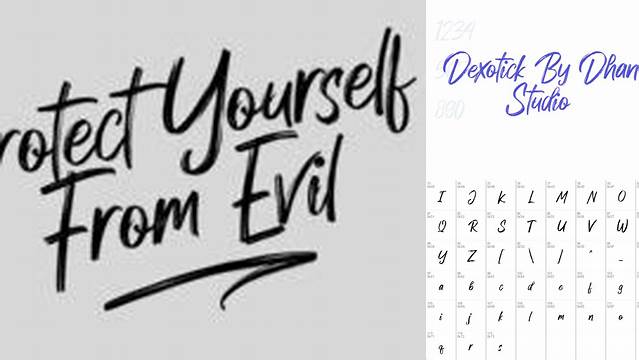
Hey guys! Are you on the hunt for a font that screams uniqueness and style? Look no further! We're diving deep into the world of Dexotick, a font that’s been making waves in the design community. This article is your ultimate guide to understanding what makes Dexotick so special, where you can snag it for free, and how to use it to its full potential. Get ready to elevate your design game!
1. What is Dexotick Font?
So, what exactly is Dexotick font? In the simplest terms, it's a typeface. But it's so much more than that! Think of it as a visual voice, a way to inject personality and flair into your projects. Dexotick stands out with its distinctive characteristics – perhaps it's the unique curves, the playful serifs, or the overall modern yet retro vibe it exudes. Designers often turn to Dexotick when they need a font that isn't just readable but also leaves a lasting impression. It's the kind of font that can make a headline pop, a logo memorable, or even a simple invitation feel extra special. The beauty of Dexotick lies in its versatility; it can be both elegant and edgy, depending on how you use it. Whether you're working on a branding project, designing a website, or crafting social media graphics, understanding the nuances of Dexotick font will help you make the right choices and create visually stunning results. Imagine using it for a poster – the bold strokes immediately grab attention. Or picture it gracing the pages of a magazine, adding a touch of sophistication. The possibilities are endless, and that’s what makes Dexotick such a valuable asset in any designer's toolkit. To truly appreciate its appeal, you need to see it in action. Explore different weights and styles within the Dexotick family, and you'll quickly discover how adaptable it is. It's not just a font; it's a design element that can transform your work from ordinary to extraordinary. Using Dexotick font effectively involves understanding its personality and applying it where it shines the most. It’s about finding that perfect balance between readability and visual impact. So, as you delve deeper into the world of typography, keep Dexotick in mind – it might just be the secret ingredient your next project needs!
2. Key Features of Dexotick
Okay, let’s break down what makes Dexotick font so unique. When we talk about key features, we’re not just looking at the alphabet; we’re digging into the nitty-gritty details that set this font apart from the crowd. First off, think about its overall style. Is it modern? Classic? Maybe a little bit of both? Dexotick often boasts a blend of contemporary design with a nod to vintage aesthetics, making it incredibly versatile. Then there’s the letterforms themselves – are the lines clean and sharp, or do they have a more organic, flowing feel? Dexotick might incorporate unusual curves, serifs, or even swashes that add character and flair. Another crucial feature is its weight and variations. Does Dexotick come in different weights, like bold, italic, or light? A comprehensive font family gives you more flexibility in your designs, allowing you to create visual hierarchy and emphasis. The spacing and kerning are also vital. Good spacing ensures that the letters sit comfortably together, making the text easy to read. Kerning, the adjustment of space between individual letters, refines the overall look and feel. Dexotick font typically pays close attention to these details, ensuring a polished and professional appearance. Finally, consider its legibility. A beautiful font is useless if it’s hard to read. Dexotick usually strikes a balance between style and readability, making it suitable for a wide range of applications, from headlines to body text. By understanding these key features, you can make informed decisions about when and how to use Dexotick in your projects. It’s not just about picking a pretty font; it’s about choosing one that communicates your message effectively and enhances your overall design. So, take the time to explore these elements, and you’ll be well on your way to mastering the art of typography with Dexotick font.
5. Using Dexotick in Graphic Design Projects
Okay, now for the fun part: actually using Dexotick font in your graphic design projects! This is where you get to unleash your creativity and see how this font can transform your work. But, like any design element, it’s all about using it effectively and strategically. First things first, consider the overall tone and style of your project. Dexotick, with its unique personality, might not be the perfect fit for every situation. Think about the message you’re trying to convey and whether the font aligns with that message. Is it a bold and modern project? A vintage-inspired design? Or something more elegant and sophisticated? Dexotick can often work well in a variety of contexts, but it’s essential to ensure it complements the overall aesthetic. When it comes to typography, hierarchy is key. Use different weights and sizes of Dexotick font to create visual interest and guide the viewer’s eye. A bold weight can be perfect for headlines, while a lighter weight might work better for body text. Experiment with different combinations to see what works best. Spacing is another critical factor. Pay attention to the kerning (the space between individual letters) and the leading (the space between lines of text). Tight spacing can make your design feel cramped and difficult to read, while too much spacing can make it feel disjointed. Aim for a comfortable balance that enhances readability and visual appeal. Color also plays a significant role. Consider how the color of your text interacts with the background and other design elements. Dexotick might look stunning in a bold, contrasting color against a simple background, or it could blend seamlessly in a more subtle palette. Don’t be afraid to experiment and try different combinations. And finally, don’t forget about context. Where will your design be used? A website? A poster? A social media graphic? The intended use can influence your font choices and how you apply Dexotick font in your layout. So, grab Dexotick, start experimenting, and see how it can elevate your graphic design projects. With a little bit of practice and a keen eye for detail, you’ll be creating stunning visuals in no time!